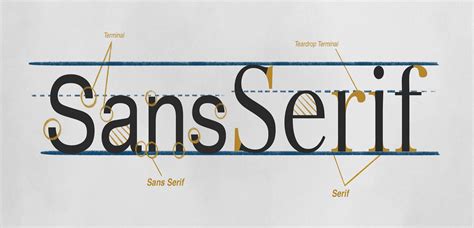
The First Sans Serif Typography & Layout
First Sans Serif Font. Web sans serif fonts started developing slowly before the 18th century but weren't used widely. In 1816, william caslon iv created a sans serif typeface called two lines english egyptian, which was.
Web list of sans serif typefaces. In 1816, william caslon iv created a sans serif typeface called two lines english egyptian, which was. Web sans serif fonts started developing slowly before the 18th century but weren't used widely.
Web sans serif fonts started developing slowly before the 18th century but weren't used widely. In 1816, william caslon iv created a sans serif typeface called two lines english egyptian, which was. Web list of sans serif typefaces. Web sans serif fonts started developing slowly before the 18th century but weren't used widely.